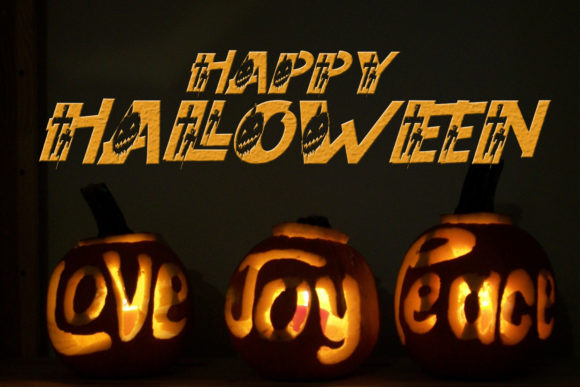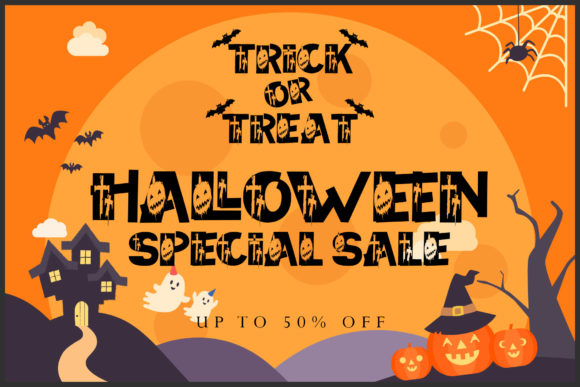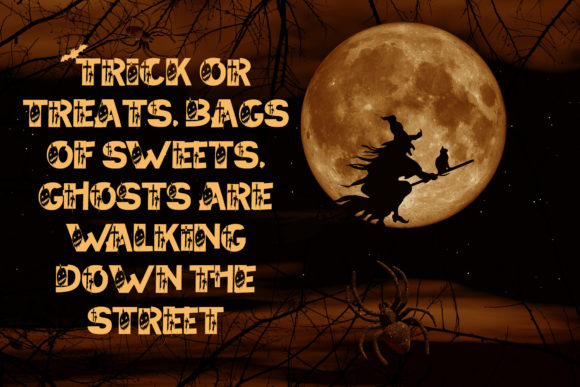
Introduction to Pumpkin Scream Font
As the spooky season approaches, designers often find themselves on the hunt for the perfect font to bring their high-quality Halloween designs to life. Have you ever stumbled upon the perfect project, only to be held back by the lack of a unique and creative font? That’s where the Pumpkin Scream Font comes in – a cool and creepy decorative font that’s sure to make your designs stand out.
With its PUA encoded glyphs and swashes, accessing all of the font’s features is a breeze, making it a valuable resource for designers working on a wide range of creative projects. Whether you’re a seasoned pro or just starting out, this free download is an absolute must-have for anyone looking to add a touch of eeriness to their designs.
Key Features of Pumpkin Scream Font
- Pumpkin Scream Font is a unique and high-quality design resource, perfect for creative projects that require a spooky touch.
- The font features a transparent background, allowing for easy layering and customization in various design applications.
- The unique, hand-drawn design of Pumpkin Scream Font makes it an excellent choice for designers seeking a one-of-a-kind, creative project element.
Honest Review: Pumpkin Scream Font
What I like most about this font is its high quality and unique design. The transparent background gives it a touch of elegance, perfect for creative projects that require a bit of sophistication. The font’s versatility allows it to be used in a variety of contexts, from logos to digital interfaces.
Here are some of the things that work well:
- ✨ High quality design
- ✨ Transparent background
- ✨ Versatile and suitable for various design projects
Overall, I’m impressed with the Pumpkin Scream Font and would highly recommend it to designers looking for a unique and high-quality design resource. Just be aware of its limitations and use it in the right context.
Pumpkin Scream Font
The Pumpkin Scream Font is a unique design resource perfect for creative projects. With its high-quality design and transparent background, it’s a great addition to any project.
The Pumpkin Scream Font is perfect for Halloween-themed designs, but it can also be used for other creative projects, such as invitations, social media graphics, and more.
Does the Pumpkin Scream Font have a transparent background?
Yes, the Pumpkin Scream Font has a transparent background, making it easy to use in any design project, whether it’s a spooky Halloween-themed poster or a creative project that requires a bold and eye-catching font.